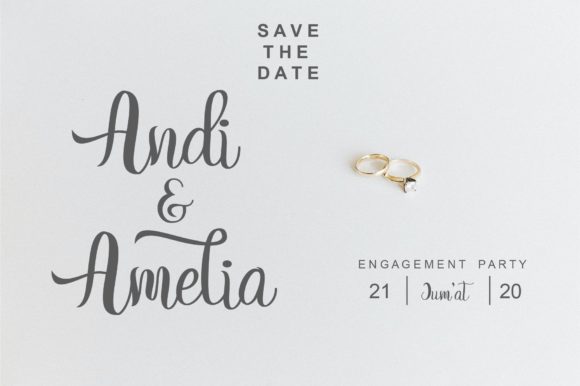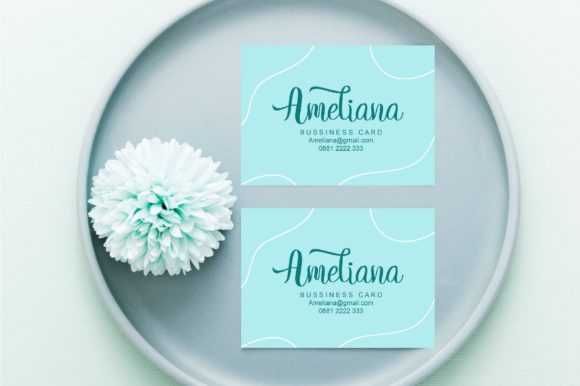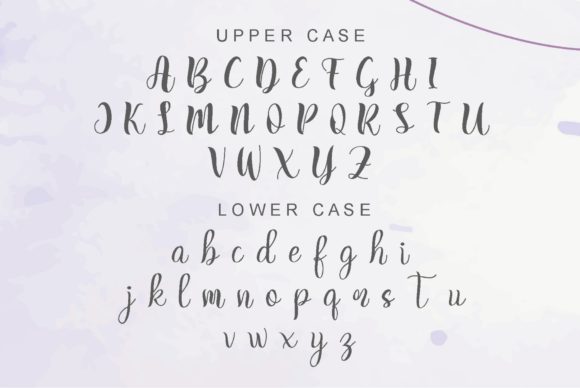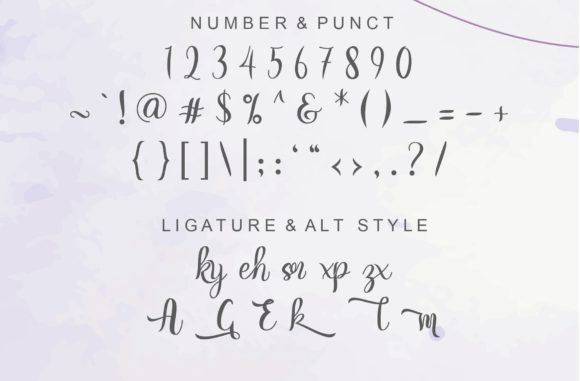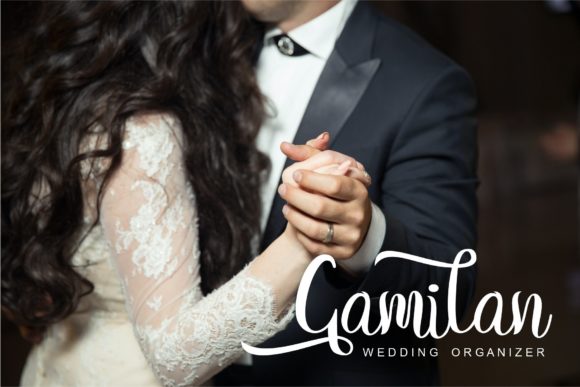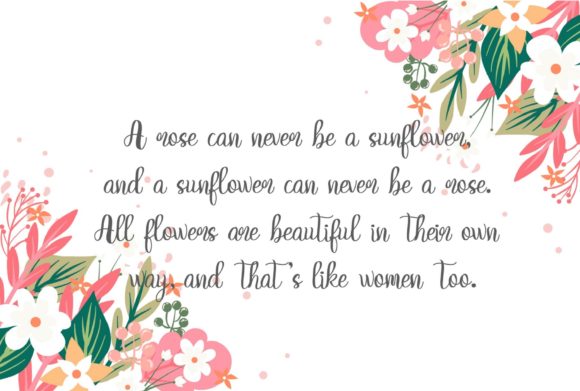
Introducing Armelia Font: Elevate Your Designs with Elegance and Flair
Are you on the hunt for a font that exudes elegance, sophistication, and a touch of whimsy? Look no further than Armelia Font, a unique handwritten font that is sure to take your designs to the next level. With its flowing lines and beautiful curves, Armelia is the perfect choice for designers and crafters looking to add a personal touch to their work.
What Makes Armelia Font So Special?
Armelia Font is a one-of-a-kind handwritten font that feels incredibly elegant and flowing. Its unique characteristics make it stand out from other fonts, and its versatility ensures that it can be used in a wide range of design projects. Whether you’re working on wedding invitations, thank you cards, quotes, greeting cards, logos, business cards, or any other design that needs a handwritten touch, Armelia Font is the perfect choice.
Wedding planners, event coordinators, and designers, rejoice! Armelia Font is a dream come true for creating stunning wedding invitations, save-the-date cards, and other event-related designs. Its elegant and sophisticated feel makes it perfect for formal events, while its playful and whimsical touch adds a romantic flair. Use Armelia Font to create beautiful wedding stationery, and watch as it sets the tone for an unforgettable celebration.
Add a Personal Touch to Your Designs
Armelia Font is more than just a font – it’s a way to add a personal touch to your designs. With its handwritten feel, Armelia Font gives your work a unique and human touch that sets it apart from generic, computer-generated fonts. Whether you’re designing for a client or working on a personal project, Armelia Font helps you create something truly special and meaningful.
The possibilities are endless when it comes to using Armelia Font in your designs. Here are just a few ideas to get you started:
- Quotes and typographic prints
Why Choose Armelia Font?
So why choose Armelia Font over other fonts? Here are just a few reasons:
- Unique and elegant design: Armelia Font is a one-of-a-kind font that adds a touch of elegance and sophistication to your designs.
- Versatile and flexible: Use Armelia Font in a wide range of design projects, from wedding invitations to social media graphics.
- Handwritten feel: Armelia Font has a beautiful, handwritten feel that gives your designs a personal touch.
In conclusion, Armelia Font is a unique and elegant handwritten font that is sure to take your designs to the next level. With its versatility, flexibility, and beautiful design, Armelia Font is perfect for a wide range of design projects. Whether you’re a designer, crafter, or DIY enthusiast, Armelia Font is a must-have font that will help you create stunning and memorable designs.